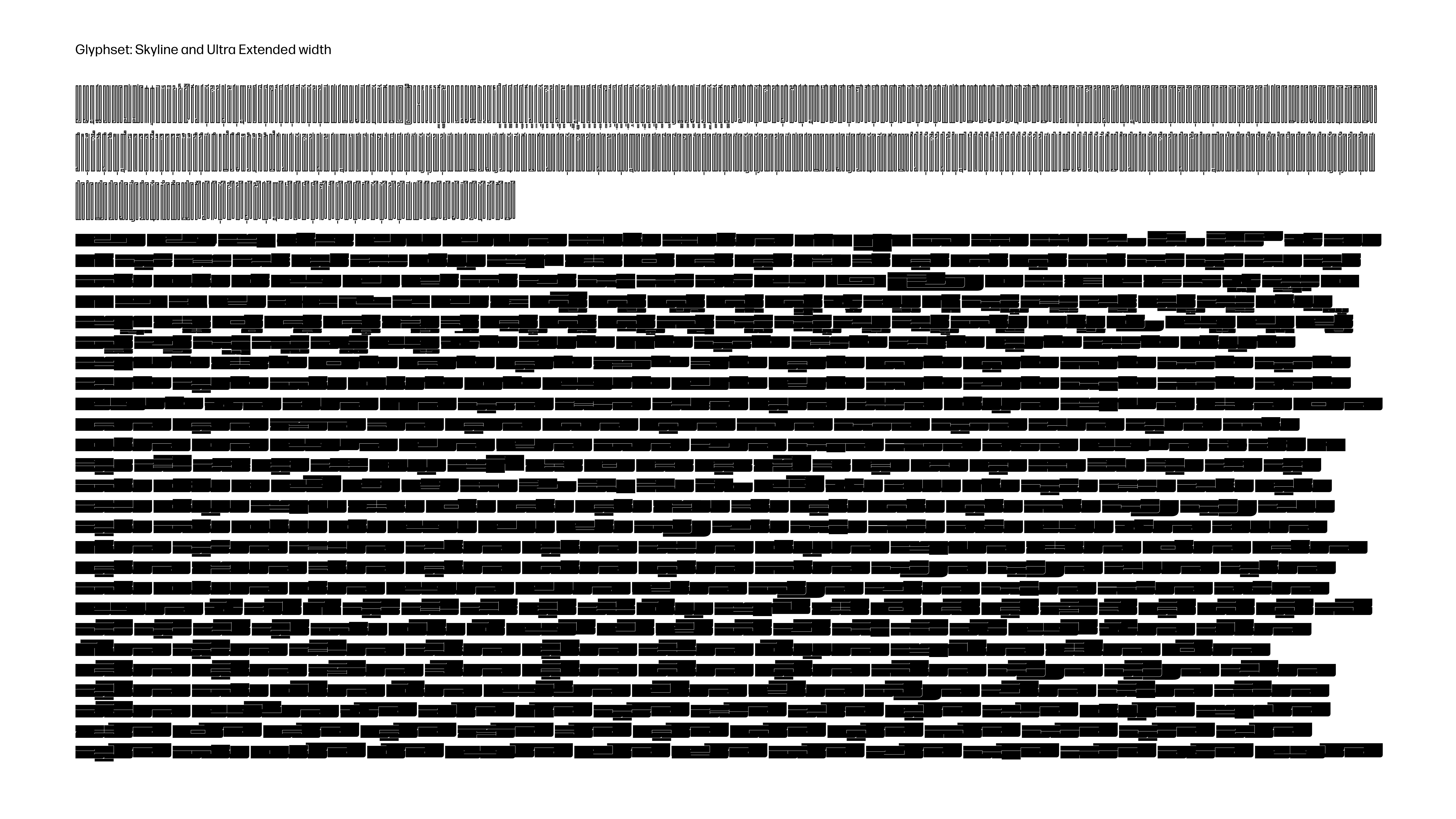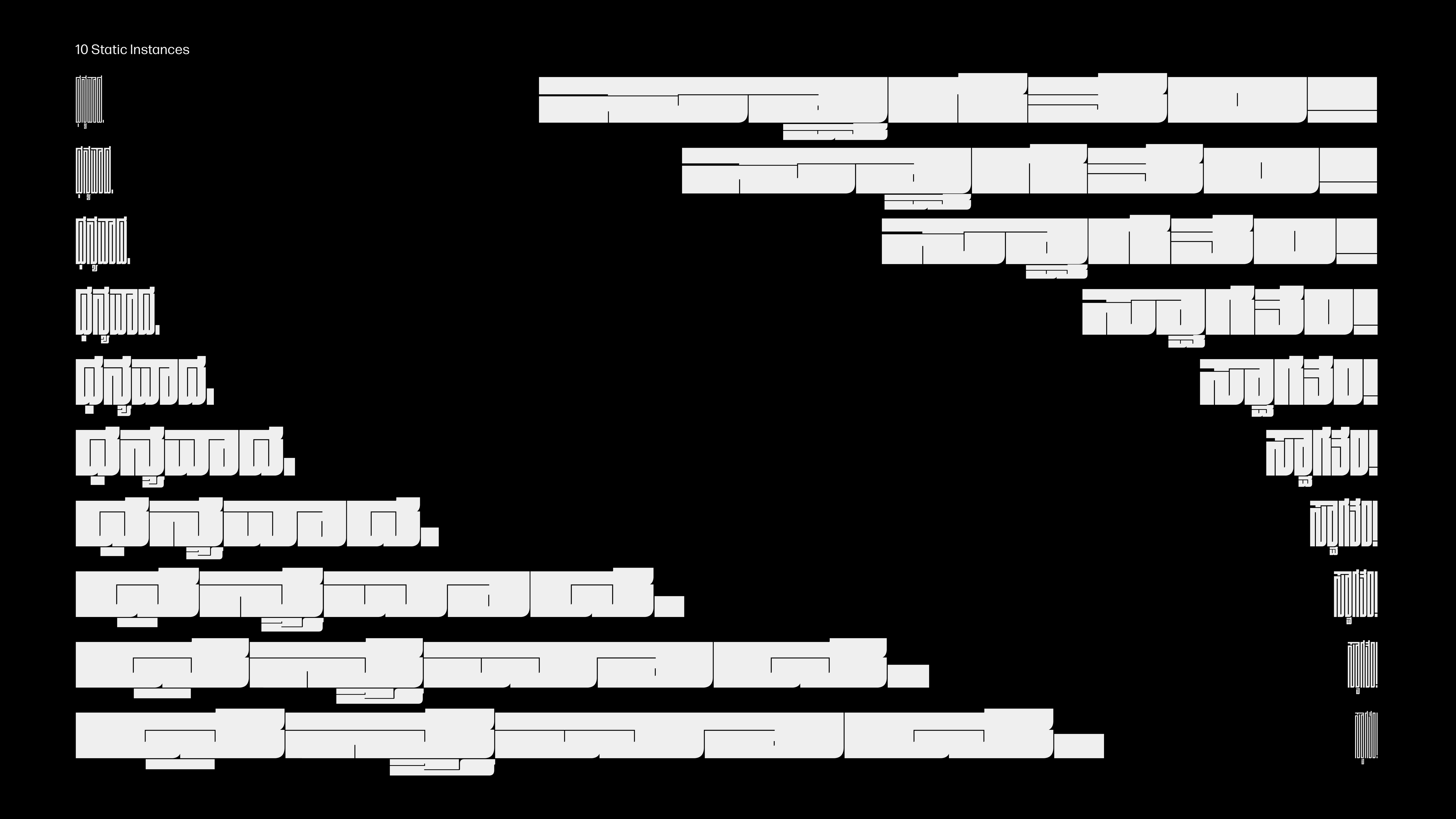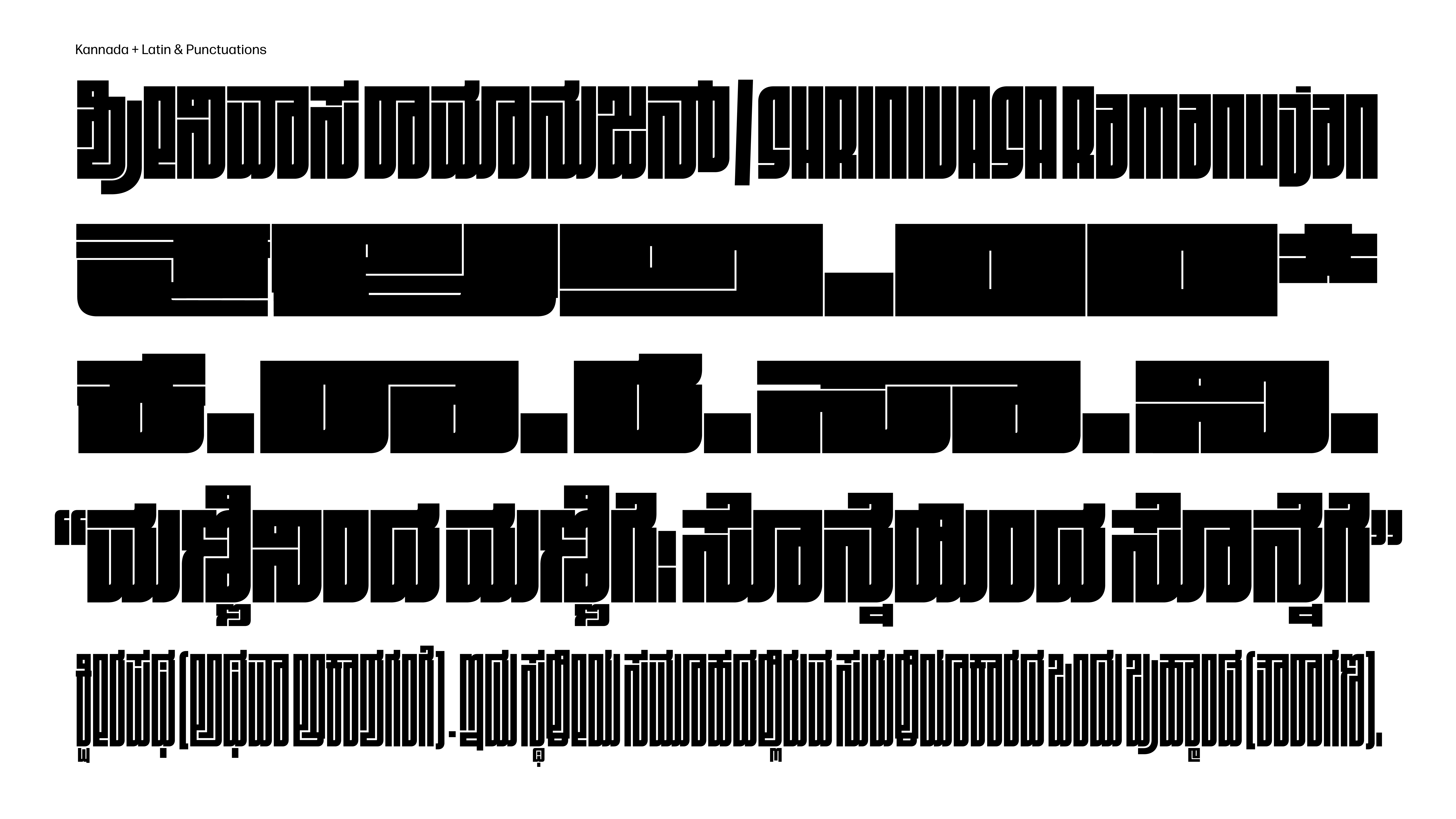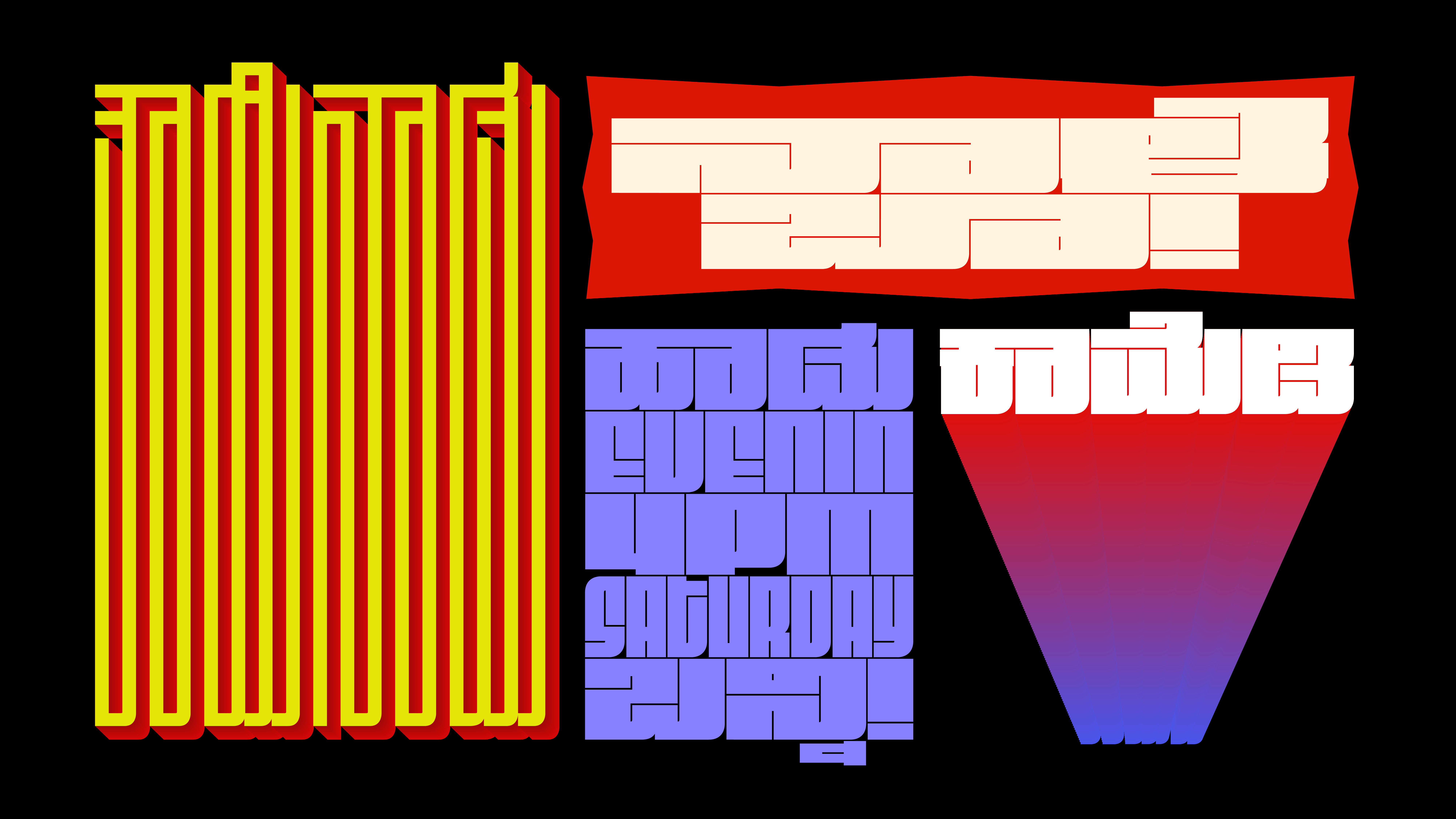
Fit Kannada
This variable font is the Kannada companion to an existing Latin (and multi-script) typeface. The font varies in width, with 3 masters outlining the outrageously narrow Skyline width, to the surprisingly legible Normal width, and halting at the monstrously wide Ultra Extended width. The typeface occupies almost any width imaginable, and this magic is now available for Kannada readers anywhere. As this style works perfectly well for the Latin script, it looks right at home in its Kannada outfit, with careful attention to legibility, locally-relevant letterforms and carefully crafted conjuncts and consonant-vowel glyphs. It looks right at home in Karnataka!